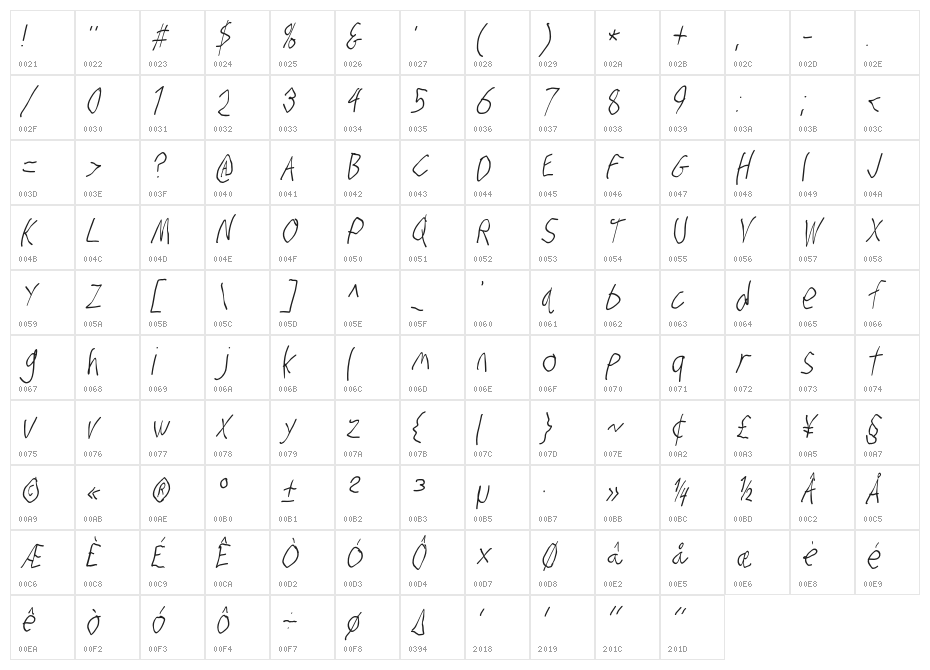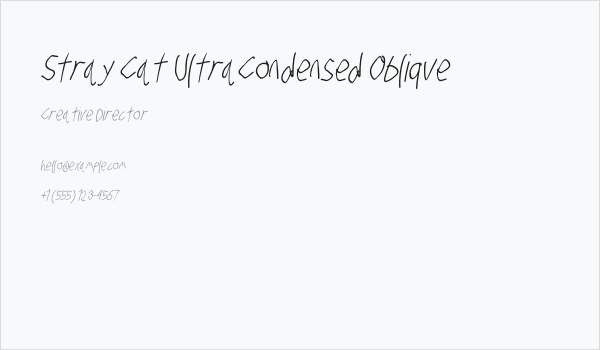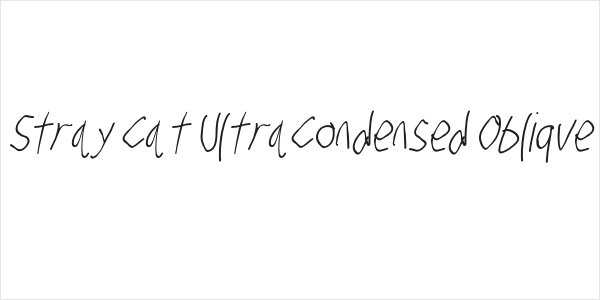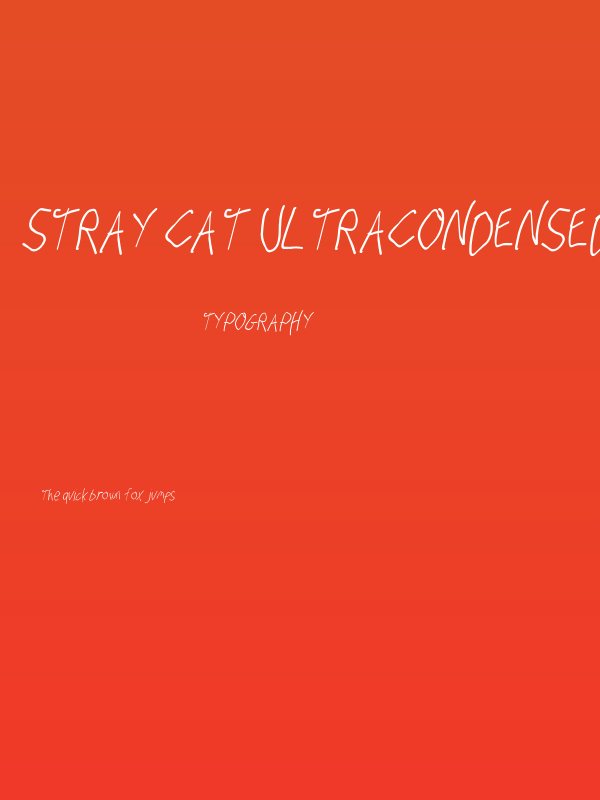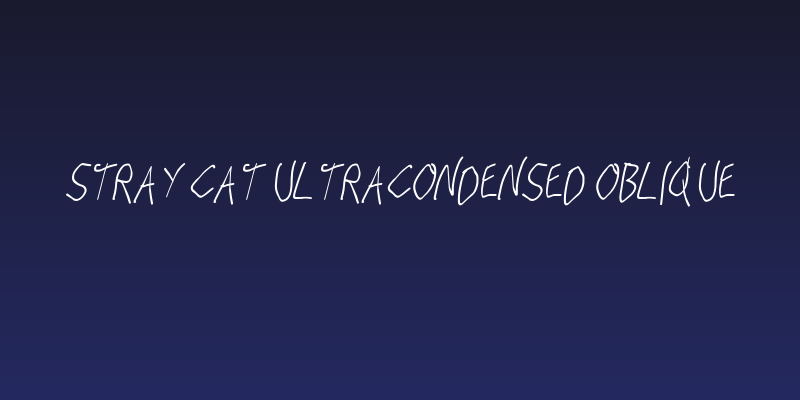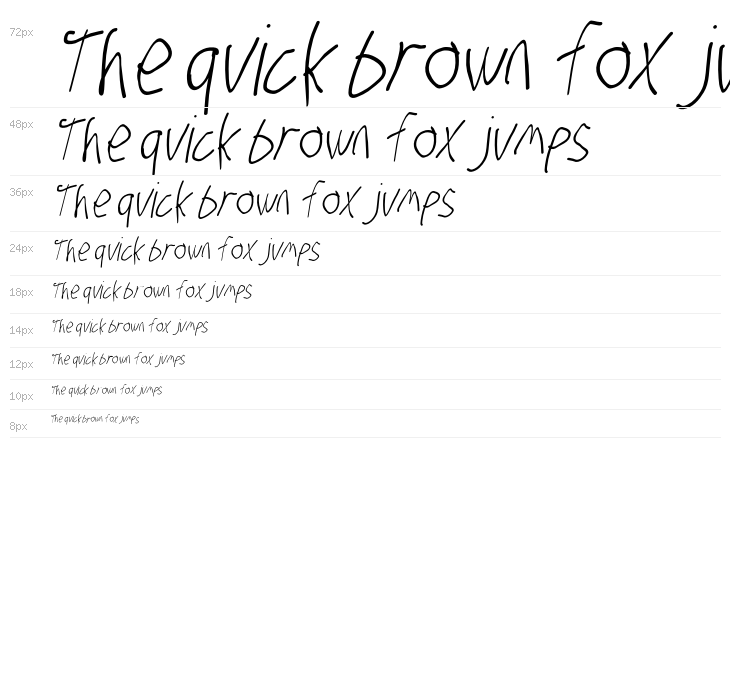
Stray Cat UltraCondensed Oblique Font
Stray Cat UltraCondensed Oblique Description
This font features a playful and informal handwritten style, characterized by its ultra-condensed and oblique form. The letters are slightly slanted, giving it a dynamic and casual appearance. The strokes are uneven and organic, mimicking the natural flow of handwriting. This font exudes a sense of spontaneity and creativity, making it ideal for projects that require a personal touch. The characters are closely spaced, enhancing its compact look, while maintaining legibility. The font includes a full set of uppercase and lowercase letters, numbers, and a variety of special characters, providing versatility for different design needs.
| Use Case | Logos, Headlines, Informal Text |
| Proposed Projects | Ideal for creative projects such as greeting cards, personal notes, informal invitations, and artistic posters. |